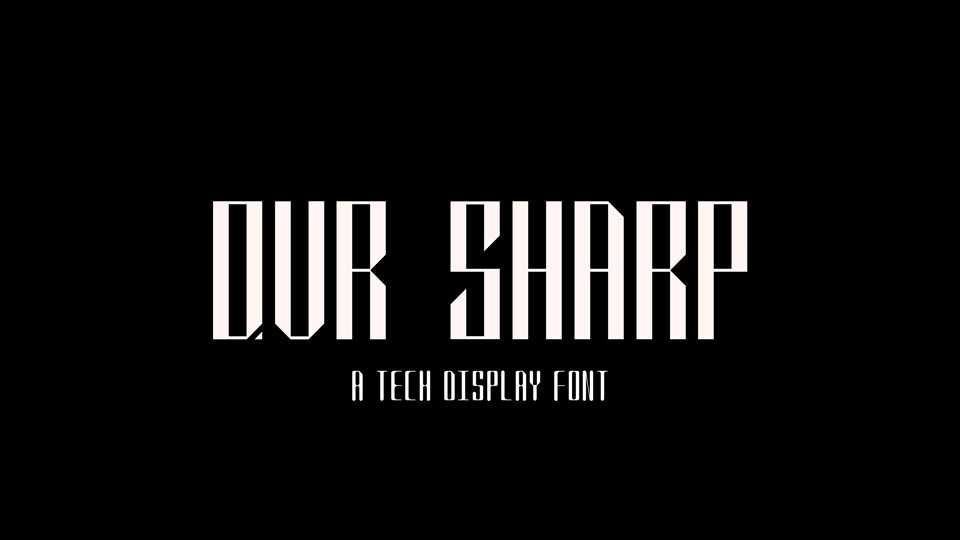
Download QVR Sharp typeface, a (almost) monospace tech display font family with high contrast characters. QVR Sharp is available in two versions: with razor sharp or soft and rounded corners.
Designer: blazardsky